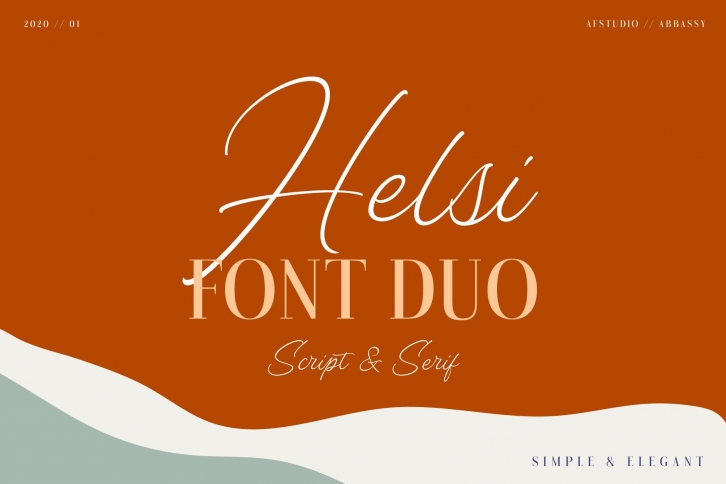
Helsi Duo is a beautiful font that was designed by AdamFathony. It's a great choice for designers and creatives who need such a font. It was released on April 7, 2020 and the file size is 15.66 MB. Helsi Duo may give a more youthful, expressive and casual look to your project. It is a very beautiful, refined, elegant, and high-quality font.